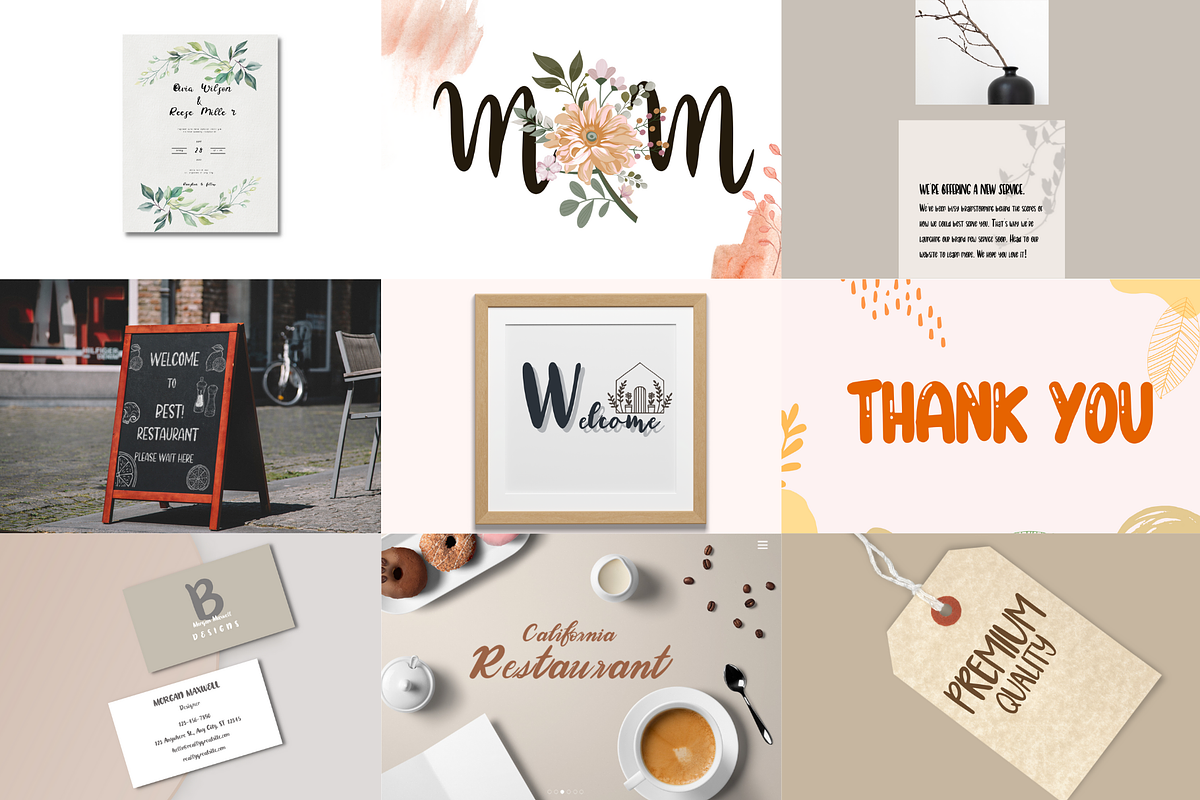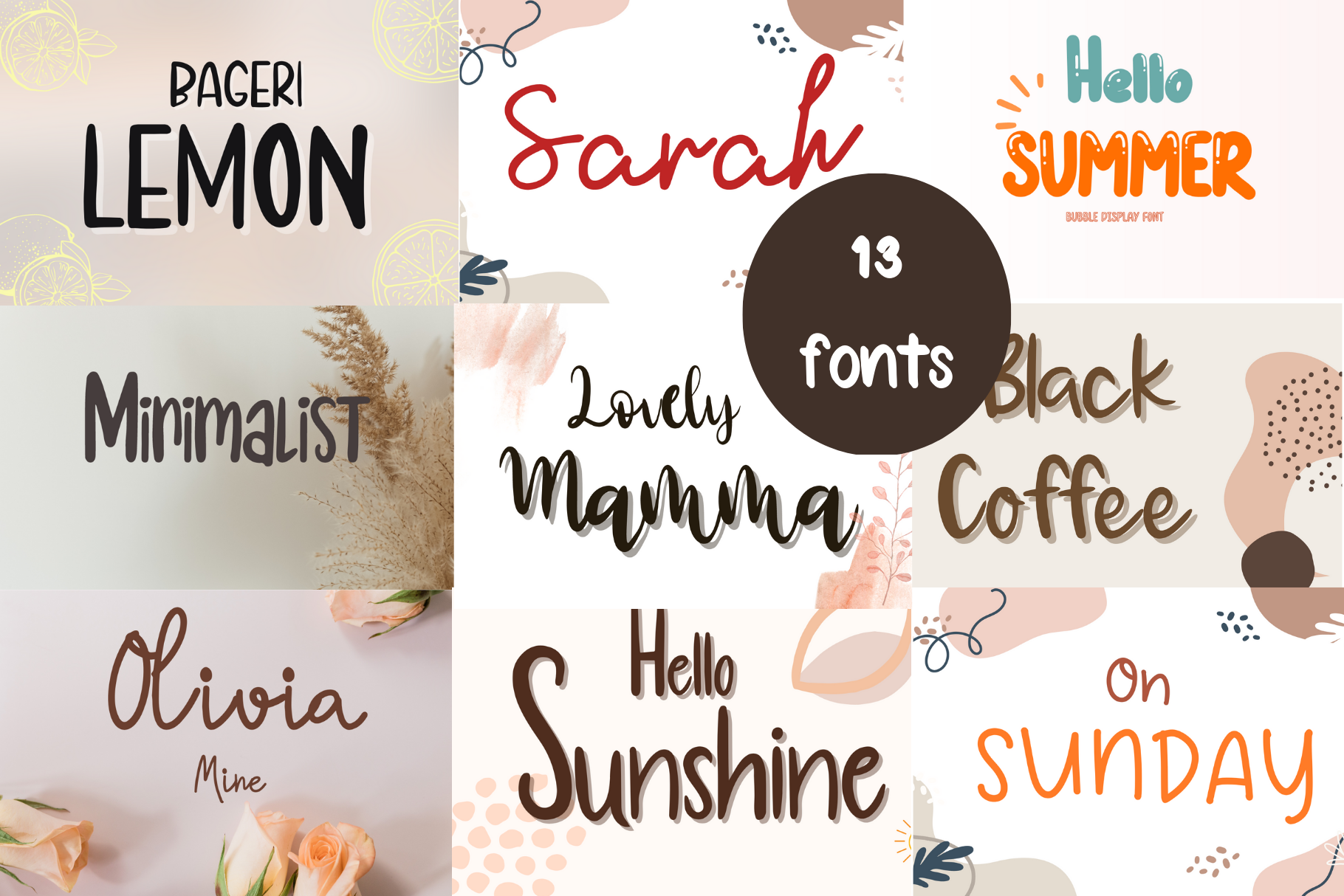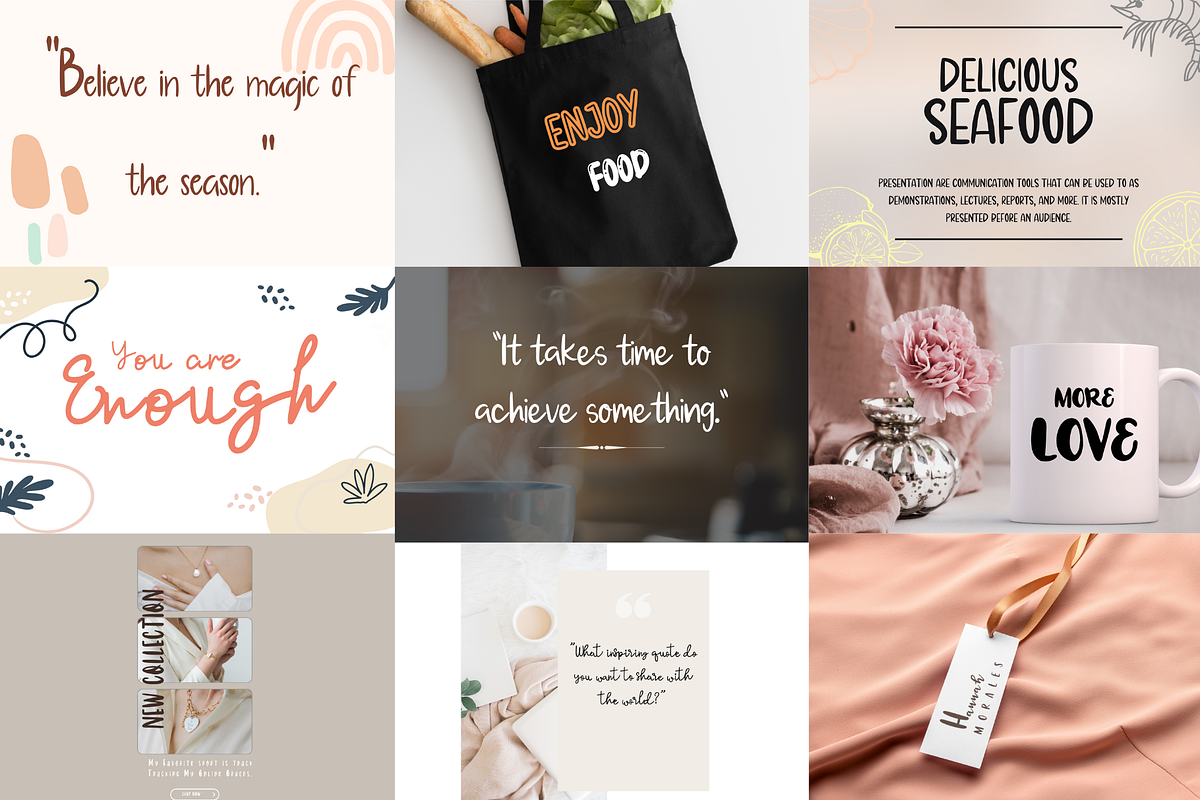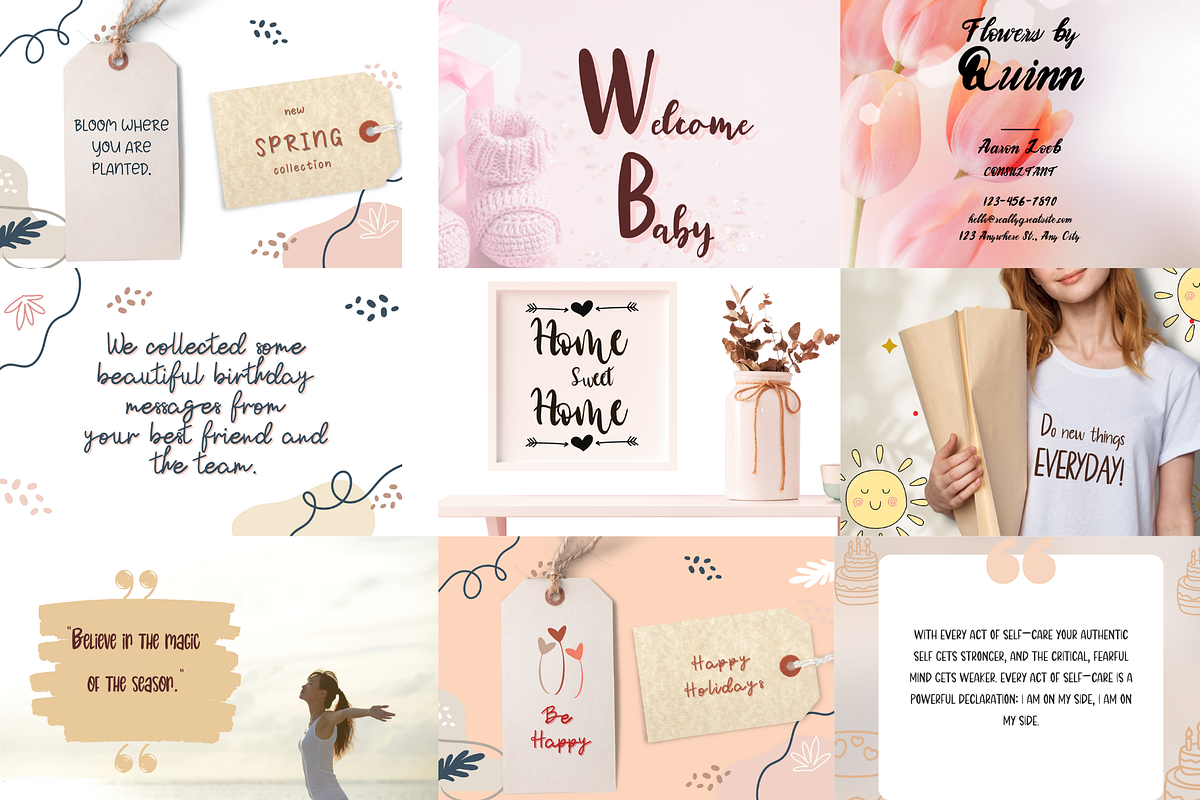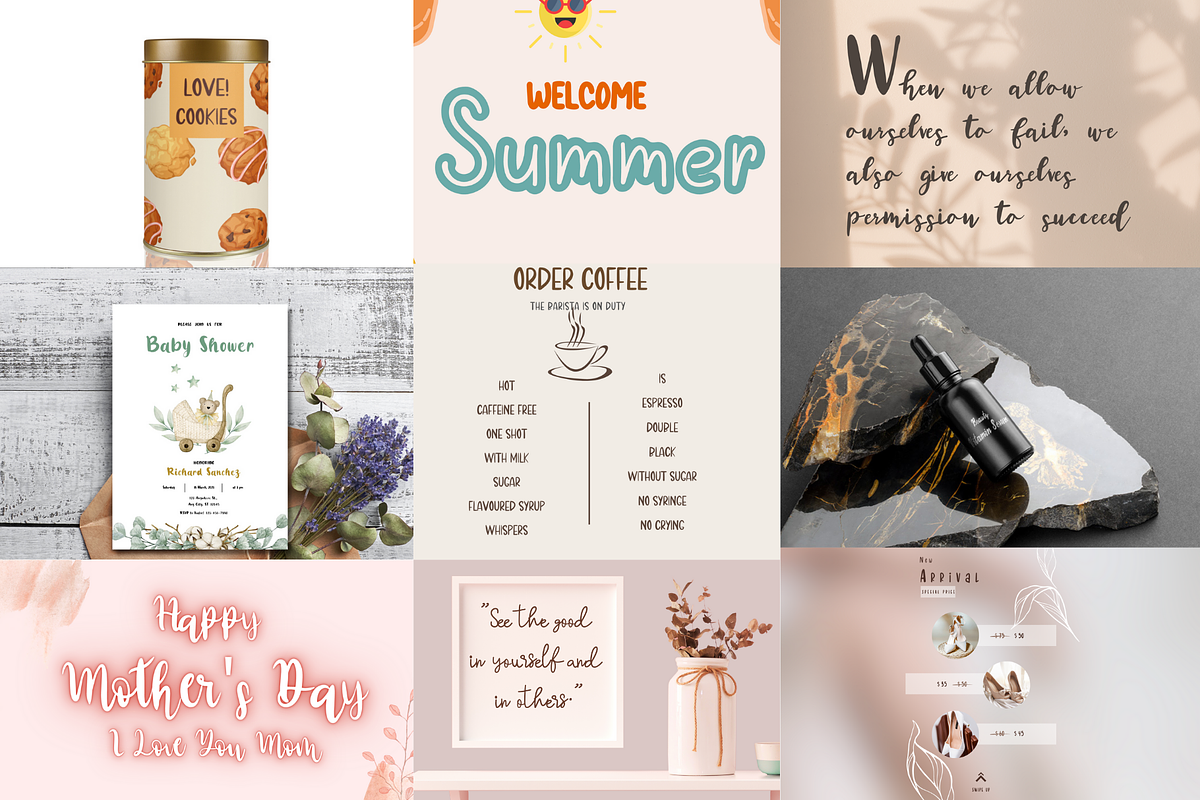
Hanwriting Bundle fonts
Handwriting Bundle fonts include 13 handwritten fonts!
Most of the fonts in this bundle are brand-new fonts! These fonts are perfect for all of your design projects, perfect for casual type in greeting cards, illustrations, quotes, quaint branding, book covers, children's books, packaging and so much more :)
Fonts Included
- Hello summer
- Bageri lemon
- Wonderful
- Lovely mamma
- Amalia
- Bloom quinoa
- Minimalist
- Hello summer
- Black coffee
- Olivia mine
- On Sunday
- Sarah
- Monserga